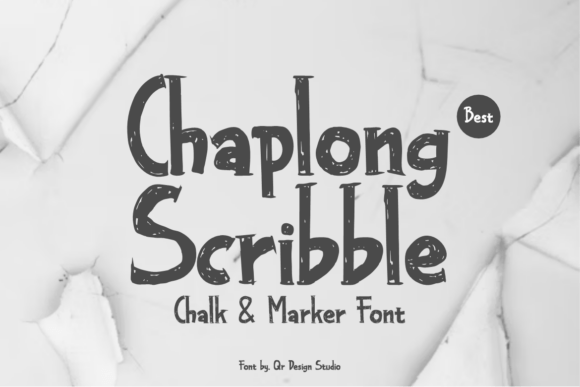
One such font that can ignite your design passion is the Chaplong Scribble Font. This charming display font is designed to capture the essence of modern handwritten typography, blending simplicity with a friendly, approachable vibe. Ideal for branding, headlines, packaging, and digital content, the Chaplong Scribble Font adds a warm and inviting touch to any design, making it a valuable asset for designers seeking to create engaging and memorable visual experiences.
Chaplong Scribble Font Key Features
- Character Set: This font features a comprehensive set of characters, including uppercase and lowercase letters, numerals, punctuation marks, and special characters, making it suitable for various typesetting needs.
- Unique Characteristics: This font features a unique, handwritten style with a mix of bold and delicate strokes, making it perfect for adding a personal touch to various designs, from invitations to signage.
Designer Review: Chaplong Scribble Font
Overall, I’m impressed with the Chaplong Scribble Font. Here are some aspects where it shines ✨:
- Unique Character: The font has a distinct, hand-drawn feel that can add a touch of personality to designs.
- Legibility: Despite its scribbly appearance, the font is surprisingly readable, making it a great choice for body text.
- Expressive: The Chaplong Scribble Font is perfect for projects that require a whimsical, creative tone.
However, there are some limitations to consider ⚠️:
- Limitations in Size: At larger font sizes, the scribbly lines can become too thick and overwhelming.
- Lack of Consistency: The font’s hand-drawn feel can make it difficult to achieve a consistent look across different font sizes and styles.
- Invitations and event materials
- Artistic quotes and posters
- Personalized stationery and greeting cards
Alternatives to Chaplong Scribble Font
The Great Vibes Font is a beautiful, handwritten font that can be used for various purposes such as invitations, quotes, and headings. It has a casual and friendly feel to it, making it suitable for informal designs.
Compared to Chaplong Scribble Font, Great Vibes Font is more elegant and refined. It has a more polished look, making it a better choice for designs where you want to convey a sense of sophistication.
The Pacifico Font is a modern, elegant font that can be used for headings, titles, and body text. It has a relaxed and friendly feel to it, making it suitable for designs that require a casual yet professional tone.
Compared to Chaplong Scribble Font, Pacifico Font is more refined and less chaotic. It has a more balanced look, making it a better choice for designs where you want to convey a sense of calmness and serenity.
The Lobster Font is a fun, playful font that can be used for headings, titles, and body text. It has a casual and energetic feel to it, making it suitable for designs that require a sense of excitement and playfulness.
Compared to Chaplong Scribble Font, Lobster Font is more quirky and less refined. It has a more whimsical look, making it a better choice for designs where you want to convey a sense of fun and creativity.
The Carolyna Pro Font is a modern, elegant font that can be used for headings, titles, and body text. It has a sophisticated and refined feel to it, making it suitable for designs that require a sense of luxury and elegance
Chaplong Scribble Font Creative Project Ideas
Create a unique and playful wedding invitation using the Chaplong Scribble Font. The font’s loose, handwritten feel will add a touch of romance and whimsy to your design.
Getting the Most Out of Chaplong Scribble Font
For optimal results, use the Chaplong Scribble Font in conjunction with bold or italic text styles to create visual interest. Experiment with different font sizes and colors to achieve a unique and eye-catching design. Consider pairing the Chaplong Scribble Font with other handwritten or script fonts to create a cohesive and stylish look.
The Chaplong Scribble Font is ideal for creative projects that require a unique and expressive touch. Use it for: